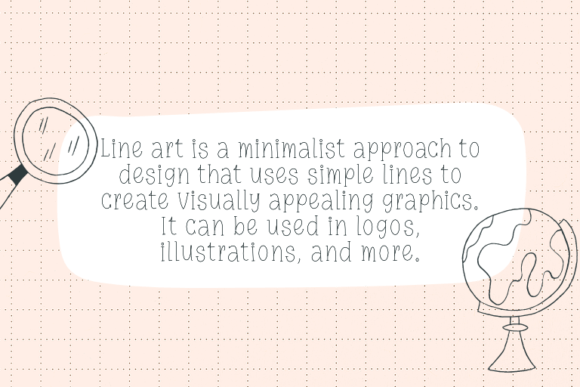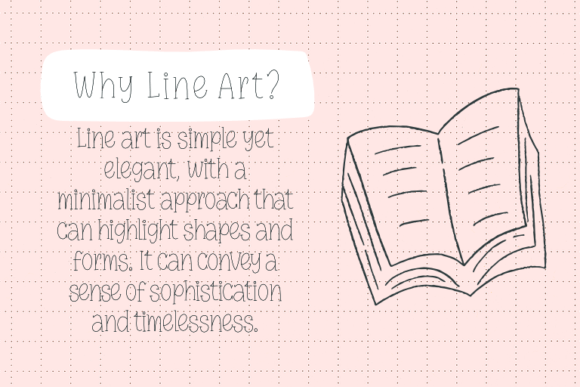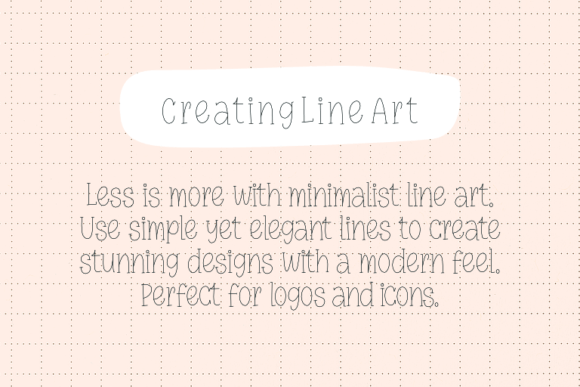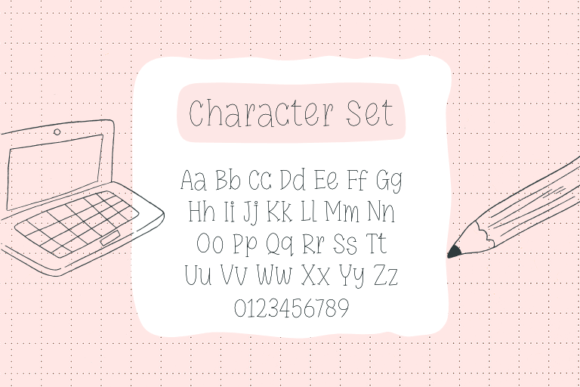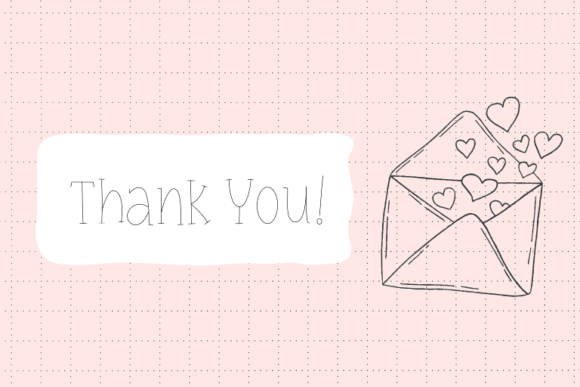
Introduction to Realty Values Font
As a designer, have you ever stared at a blank canvas, unsure of where to begin your next creative project? You’ve got an idea, but it’s just not quite taking shape. Suddenly, a spark of inspiration strikes – and you’re off and running. This is the magic of creativity, and the right design resources can make all the difference.
One such game-changer is the Realty Values Font. This simple yet powerful single-line font is about to revolutionize the way you approach design. With its unique visual effects, Realty Values Font adds an instant touch of sophistication to any project – and it’s completely free to download.
Whether you’re working on a high-end marketing campaign or a personal creative endeavor, Realty Values Font is an essential addition to your design toolkit. Its versatility, combined with its high-quality design, makes it a valuable resource for designers of all levels.
Key Features of Realty Values Font
- High-quality design resource ideal for creative projects, including real estate, architecture, and interior design.
- Features a transparent background, allowing for seamless integration into various design compositions.
- High-resolution design, suitable for print and digital applications, with a resolution of 300 DPI.
- Unique characteristics, including a modern and sophisticated aesthetic, making it an excellent choice for high-end design projects.
- Designed to provide a professional and premium look, perfect for use in logos, signage, and branding materials.
Honest Review: Realty Values Font
I recently stumbled upon Realty Values Font while searching for a unique design resource to enhance my creative project. Initially, I was drawn to its distinctive and elegant appearance, making it a great choice for professional-looking materials.
- What works well: ✨ Realty Values Font offers a wide range of styles and weights, which allows for seamless customization and flexibility in various design applications. The font’s modern and sophisticated look makes it perfect for business and corporate branding.
However, there are some limitations to consider. ⚠️ Realty Values Font does not support transparent backgrounds, which can be a drawback for designers who require this feature. Additionally, the font may not be as versatile as some other options, particularly when it comes to unconventional or artistic applications.
Overall, Realty Values Font is a solid choice for designers seeking a high-quality, professional-looking font. While it may not be perfect for every project, its strengths and free availability make it a valuable addition to any design resource library.
Tips for Getting the Most Out of Realty Values Font
Use Realty Values Font in combination with other design elements, such as images and graphics, to create a visually appealing design. Experiment with different font sizes and colors to achieve the desired effect. With its free download option, you can easily incorporate Realty Values Font into your design resource.
Realty Values Font is perfect for creating designs for real estate projects, such as property listings, brochures, and websites. It can also be used for creating designs for other industries, such as finance and business. With its high quality and transparent background, Realty Values Font is a valuable addition to any design resource.
Yes, Realty Values Font is designed to work well with transparent backgrounds. Since it has a transparent background itself, you can easily place it on top of any background image or color without any issues.